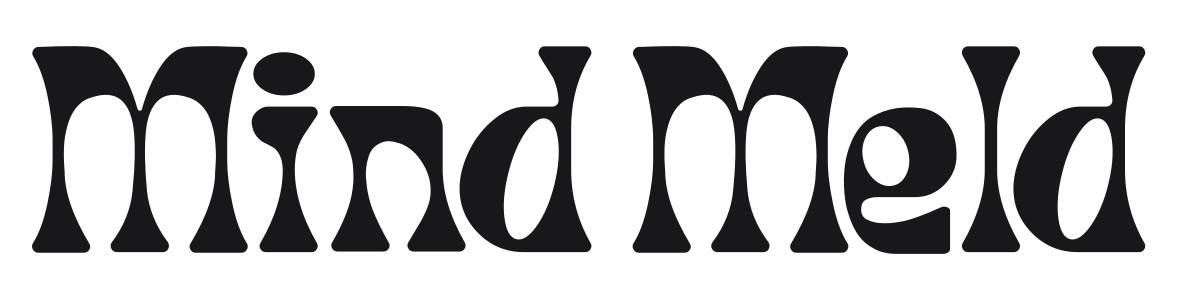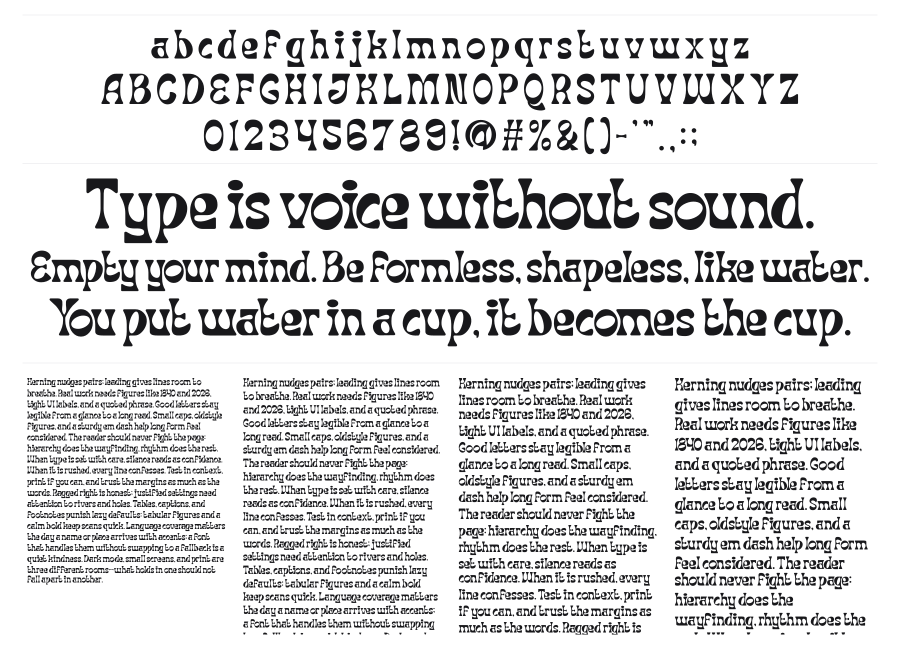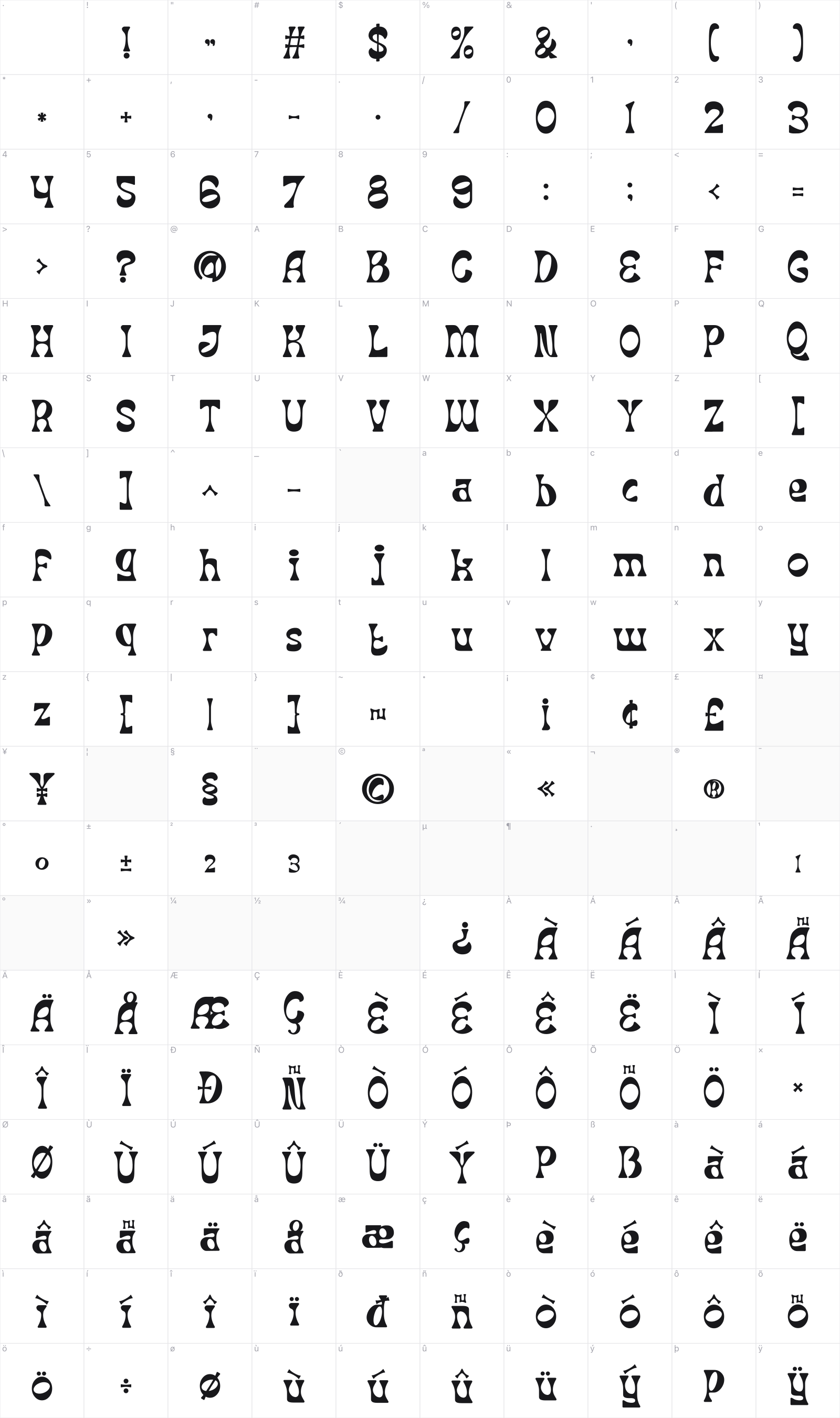
Mind Meld
Mind Meld is a psychedelic display font from PutraCetol Studio with heavy, ballooning forms and dramatic pinched joins pulled straight from 1960s–70s counterculture typography. The extreme contrast between swelling curves and compressed waists gives each character an almost liquid, pulsing energy. It reads loud and retro at poster sizes, making it a natural choice for festival branding, album artwork, and anything that needs a groovy vintage personality.